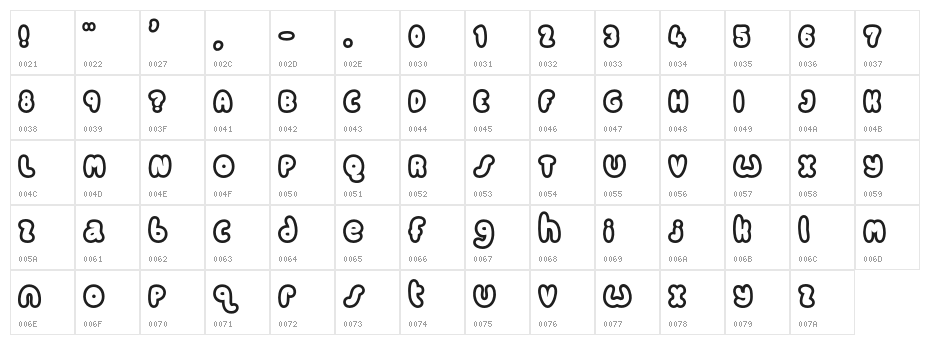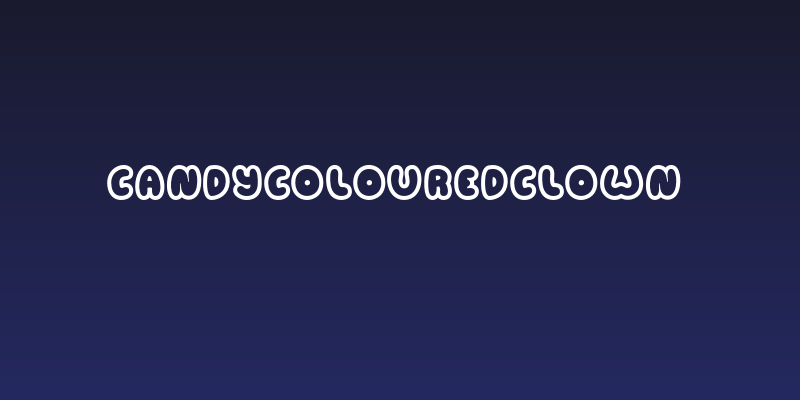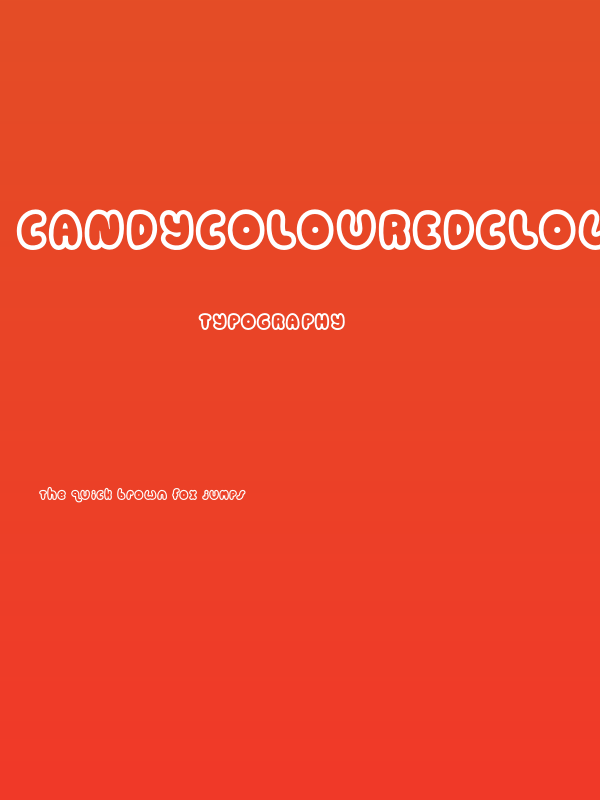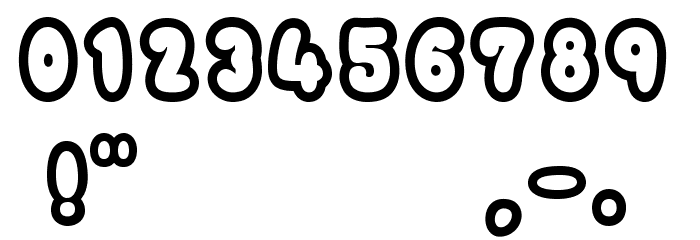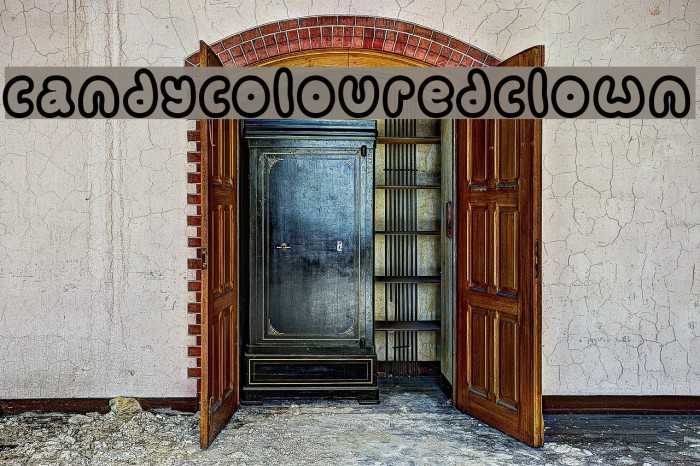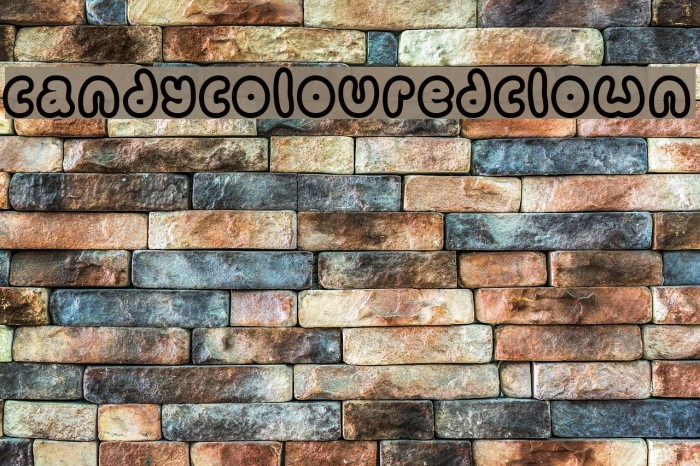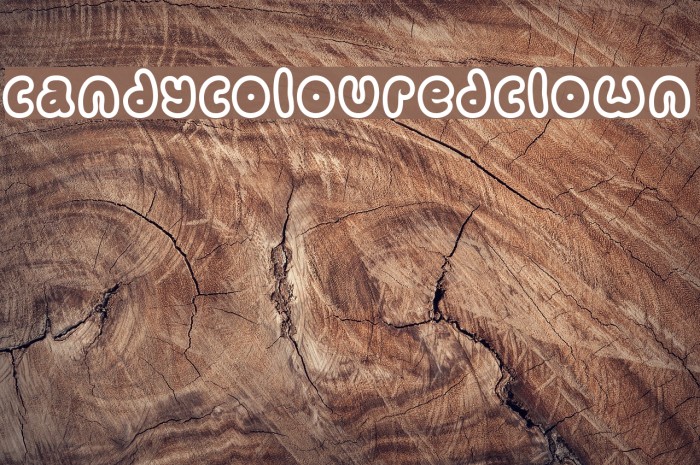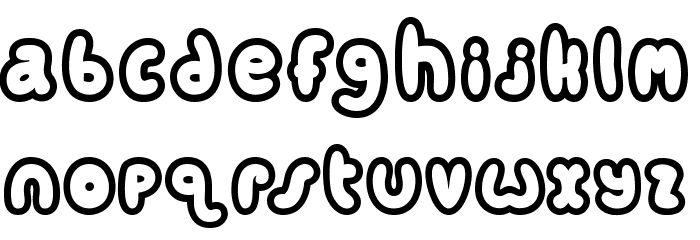
Candycolouredclown Font
Candycolouredclown Description
This playful and whimsical font features bold, rounded characters with a bubbly appearance. Each letter is outlined, creating a distinct and eye-catching style that is both fun and approachable. The font's design is reminiscent of cartoon or comic book lettering, making it ideal for projects that require a lighthearted and informal touch. The characters are evenly spaced, with a consistent thickness that adds to the overall uniformity and balance of the font. Its unique style is perfect for capturing attention and conveying a sense of joy and creativity.
| Proposed Projects | Ideal for children's books, comic strips, playful branding, party invitations, and creative posters. |